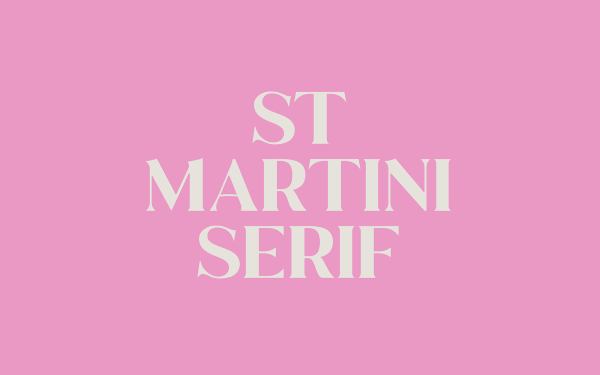
St Martini Serif Font
St Martini by Graham Paterson is a serif typeface with the quietly assured character of someone who knows exactly what they’re doing. Built with careful attention to letterform construction — particularly the proportions and rhythm of the uppercase and lowercase sets. The uppercase trial version is available for personal use; the full Pro version is available via the author’s store.